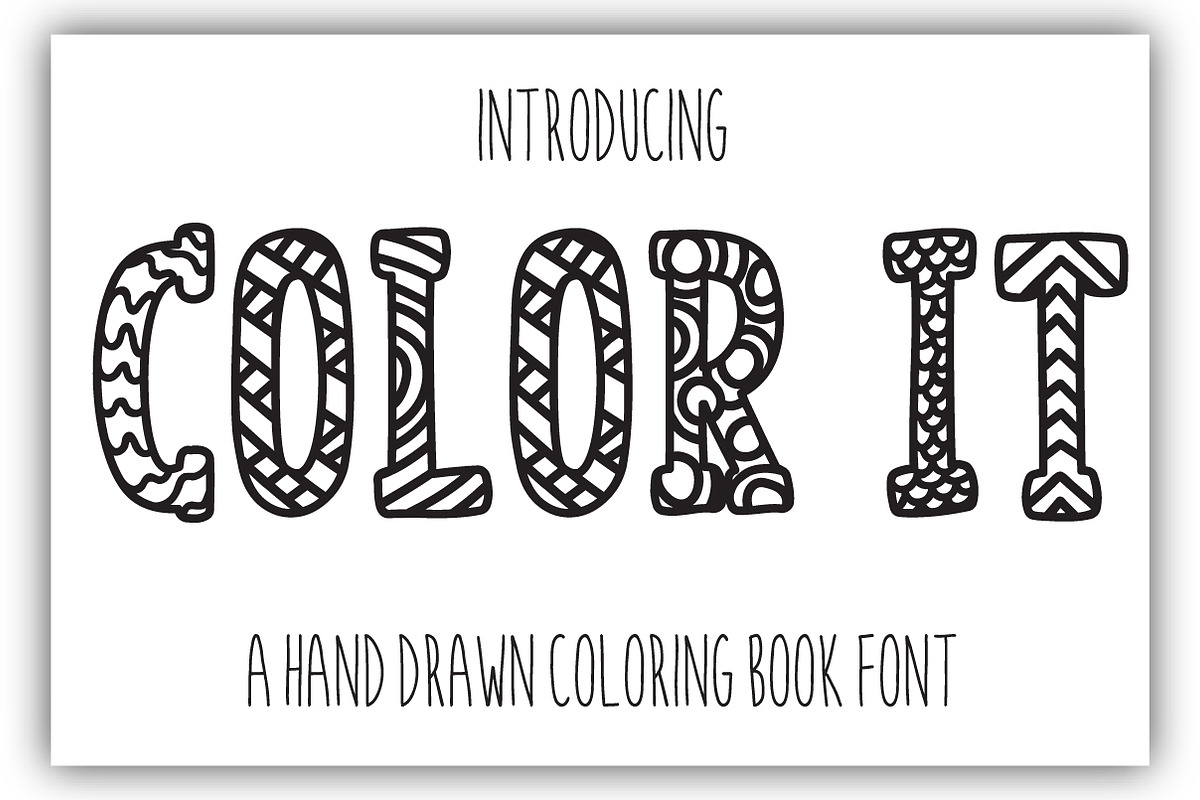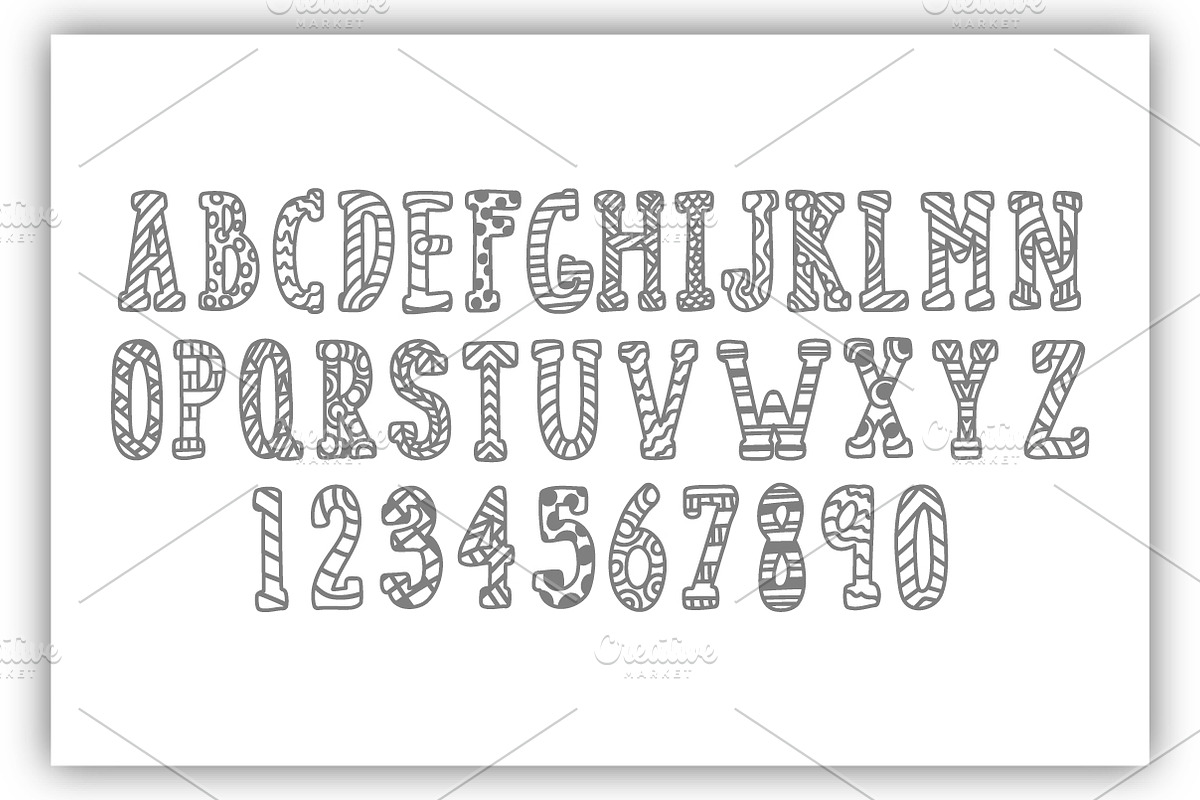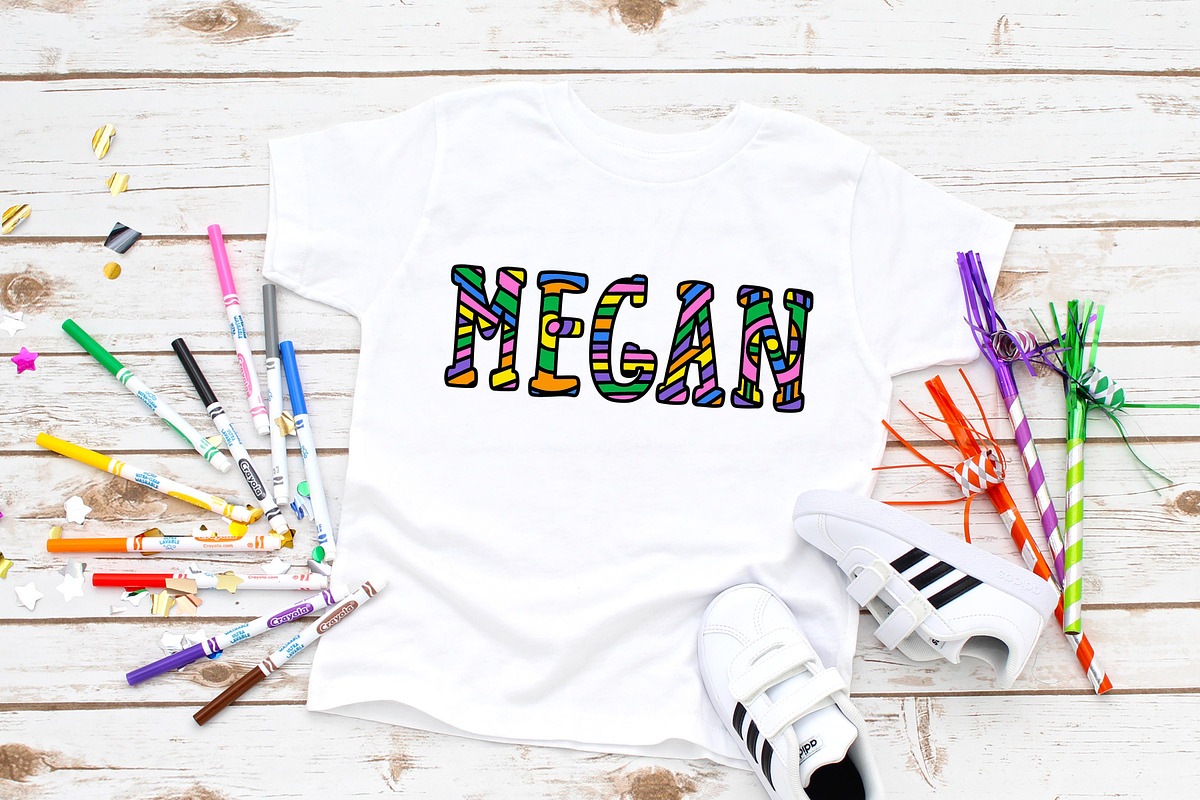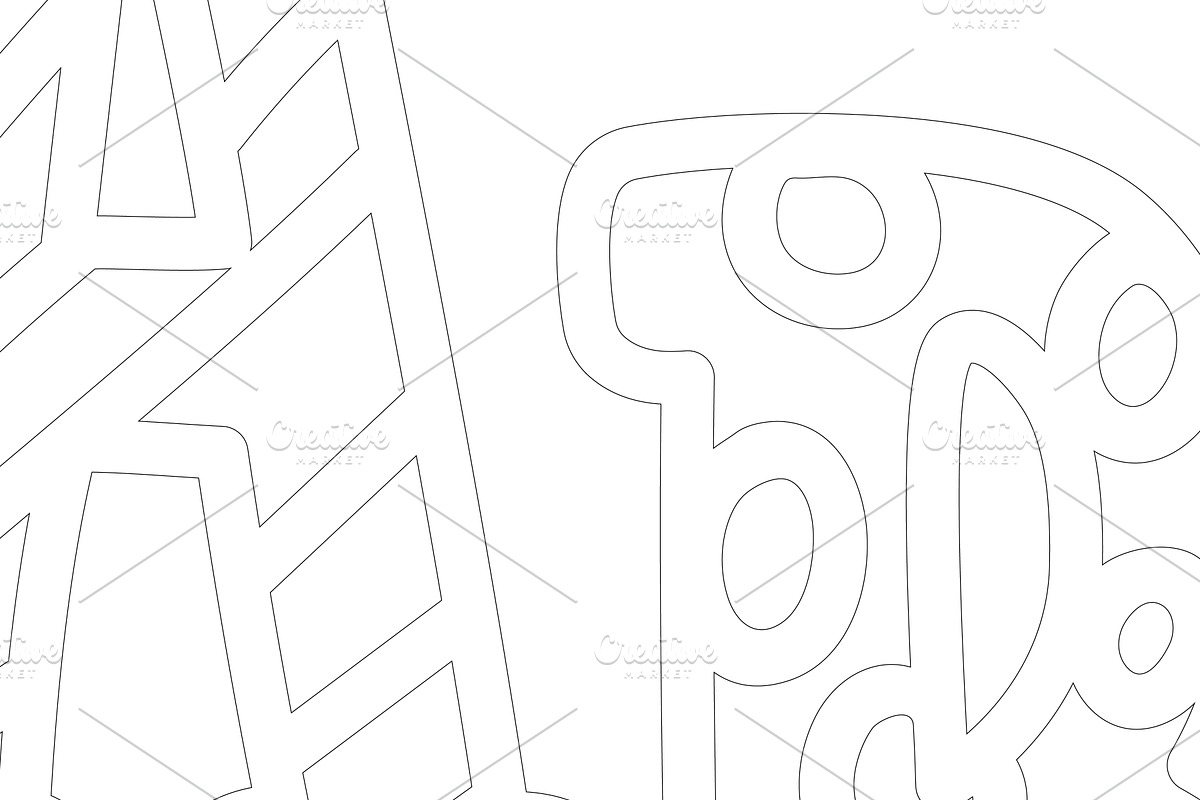
Color It Typeface
Say hello to Color It! An all cap handwritten coloring book style installable otf font. This typeface is perfect for making shirts and printable items for children to color.
Color It Typeface by North Eighty fits naturally into Branding, posters, packaging, typography.